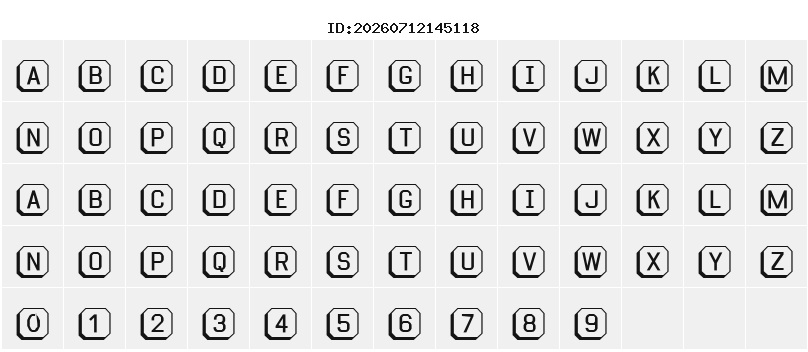
• Font Name: RatsampleMac3D
• Full Font Name: RatsampleMac3D
• PostScript Name: RatsampleMac3D
About RatsampleMac3D.ttf
RatsampleMac3D.ttf is a modern, elegant sans-serif font designed for ultimate readability and visual harmony. Perfect for branding, headlines, web design, and print materials.